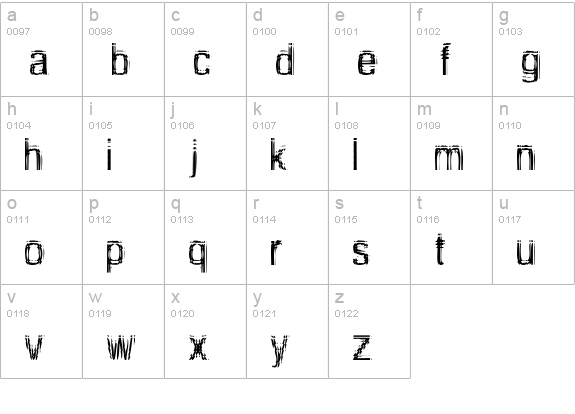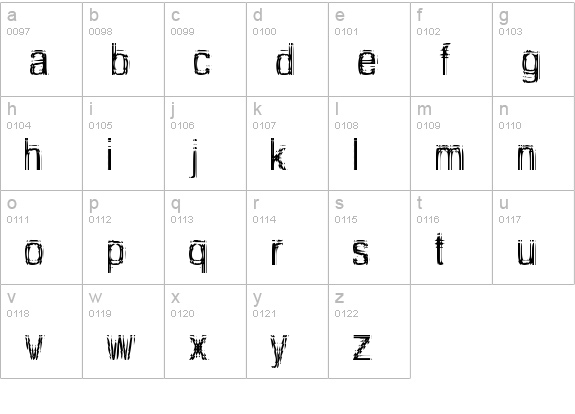
Introducing the captivating and wildly expressive Too Damn Drunk font, a typeface that effortlessly exudes a playful and carefree spirit. This font is the life of the party, bringing a unique and dynamic energy to any design project it graces. With its bold and exaggerated characters, Too Damn Drunk font adds a touch of whimsy and personality to your creative endeavors. Each letter dances across the page, imbued with a sense of mischief and celebration. Its irregular lines and uneven strokes give it an authentic hand-drawn feel, as if it were crafted by an artist with a paintbrush and a glass of champagne in hand. But what truly sets Too Damn Drunk font apart is its versatility. Whether you're designing a party invitation, a logo for a lively bar, or a quirky poster for a music festival, this font effortlessly adapts to any setting. Its larger-than-life presence commands attention, ensuring that your message will be remembered long after the festivities end. And the best part? Too Damn Drunk font is freely available to download at FontsMarket.com. Say goodbye to costly font purchases and hello to creative freedom. Now, anyone can infuse their designs with the same vibrant and spirited essence that Too Damn Drunk font embodies. So, raise a glass to creativity and let Too Damn Drunk font be your partner in design. Let it be the life of your typographic party, injecting a burst of energy and excitement into your projects. With its free availability and endless possibilities, this font is the ultimate toast to creativity and self-expression. Cheers to Too Damn Drunk font!